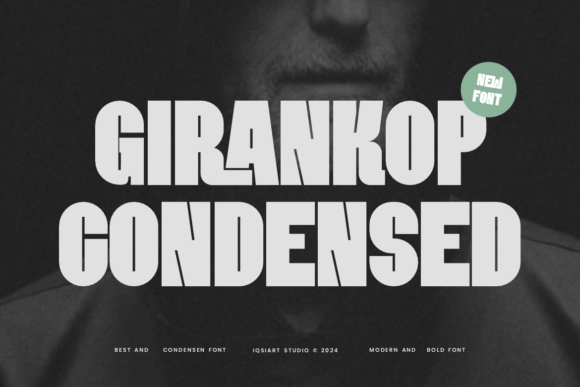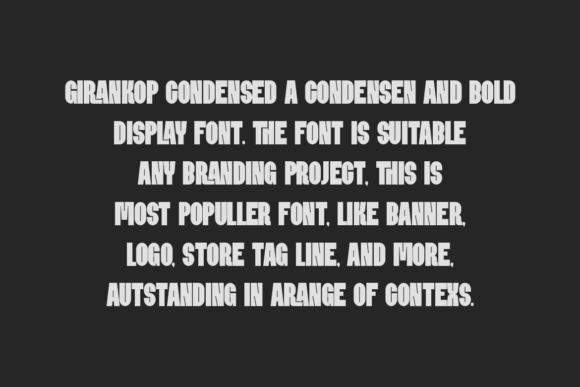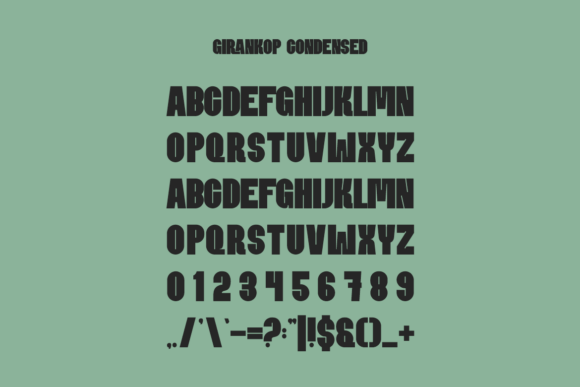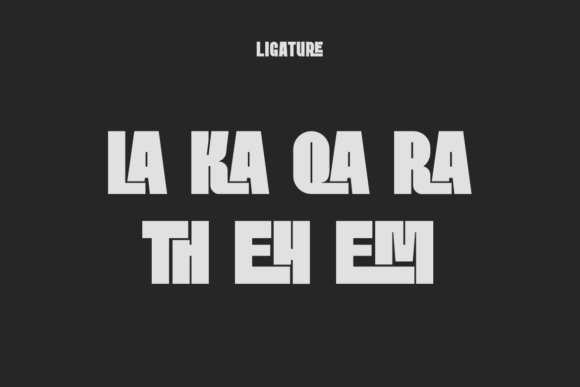
Girankop Condensed Font
About the Girankop Condensed Font
Welcome to the world of Girankop Condensed Font, a typeface that will inspire your next great project. Girankop Condensed is a bold, eye-catching display font with a modern and strong look. It’s perfect for making a statement in headlines, posters, and logos. The condensed design gives it a sleek, compact feel while maintaining readability.
Its bold, condensed nature makes Girankop Condensed ideal for short impactful headlines, branding elements like logos and taglines, and striking poster designs. It’s equally effective in packaging design where a strong visual presence is desired, particularly for products aiming for a modern or edgy aesthetic. However, its condensed form limits readability in body text or long paragraphs, and its strong personality may clash with applications requiring a more subtle or delicate touch, such as UI elements.
Consider pairing Girankop Condensed with a clean sans-serif like Open Sans for body copy to create visual balance. For a more refined look, a classic serif such as Garamond or a geometric sans-serif such as Futura would offer a sophisticated counterpoint. The font’s inherent boldness ensures it remains the focal point while complementing fonts provide readability and context.
Girankop Condensed projects a modern, confident, and assertive personality. Brands seeking to communicate strength, innovation, or a premium image will find it particularly suitable. It’s a powerful choice for technology companies, luxury goods, or any brand aiming for a strong visual impact.